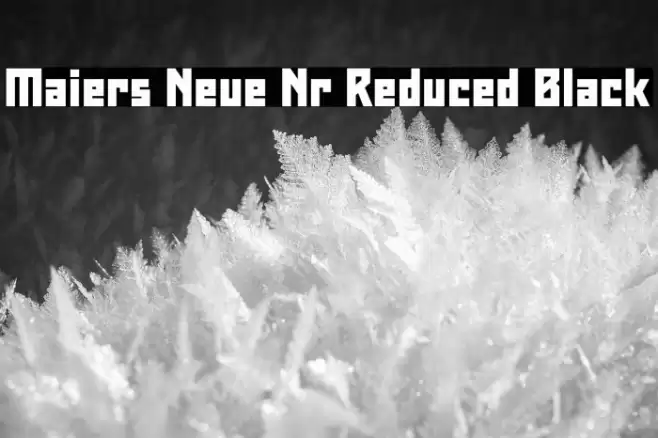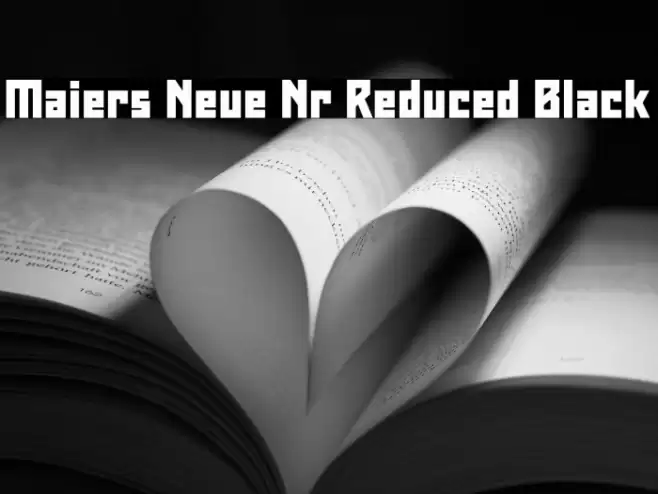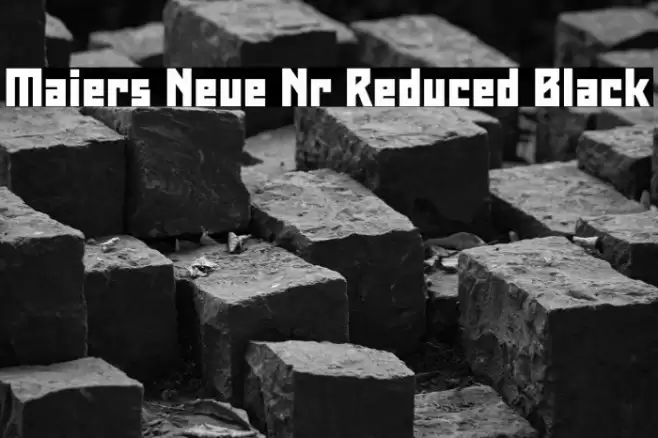
Maiers Neue Nr.8 Reduced Black Font
Maiers Neue Nr.8 Reduced Black Description
This font exhibits a bold and geometric style, characterized by its blocky and angular letterforms. The uppercase and lowercase letters maintain a consistent width, giving the typeface a monospaced appearance. The sharp angles and straight lines create a modern and assertive look, making it suitable for impactful designs. The font's structure is clean and straightforward, with minimal contrast between thick and thin strokes, emphasizing uniformity and strength. Its distinct style is ideal for creating a strong visual presence in various design projects.
A bold, geometric font with blocky, angular letterforms and a modern, assertive style from Regular fonts.
- Proposed Projects: Ideal for branding, posters, headlines, and any design requiring a strong visual impact.